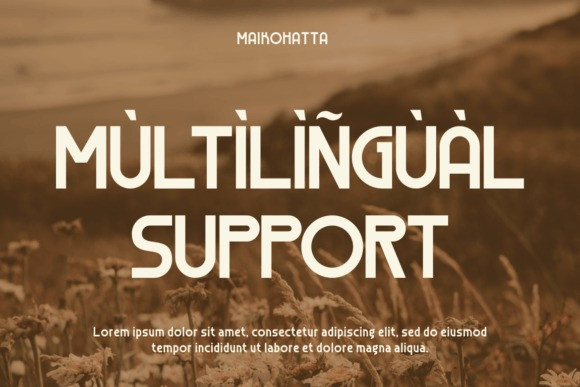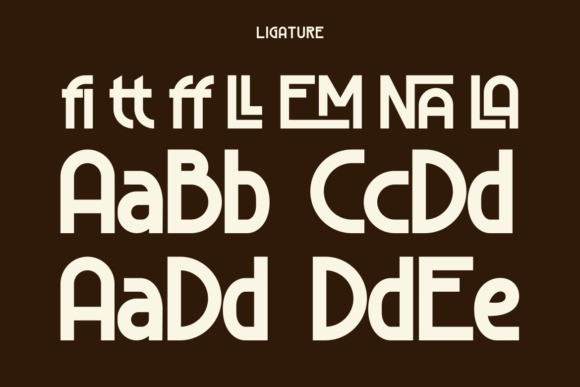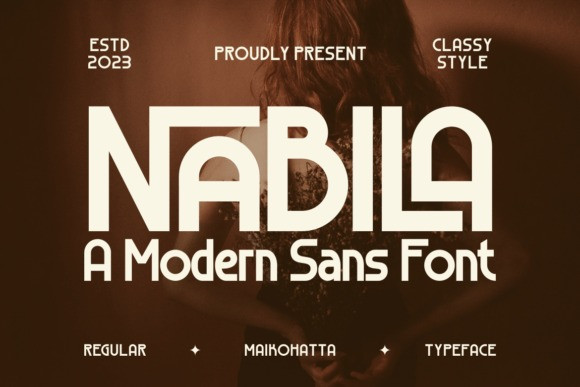
Nabila Font
Nabila Font – Beauty Sans Font – Modern Font is a bold and authentic display font. The font is suitable for any branding project like logo, template design, esport, and many more. outstanding in a wide range of contexts.